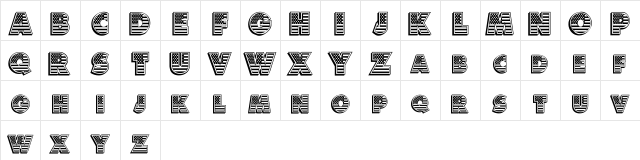
American Dream Regular Free Font
American Dream Regular
Design Context for American Dream
American Dream is a composed and adaptable typeface that performs quietly and consistently across a wide range of design contexts.